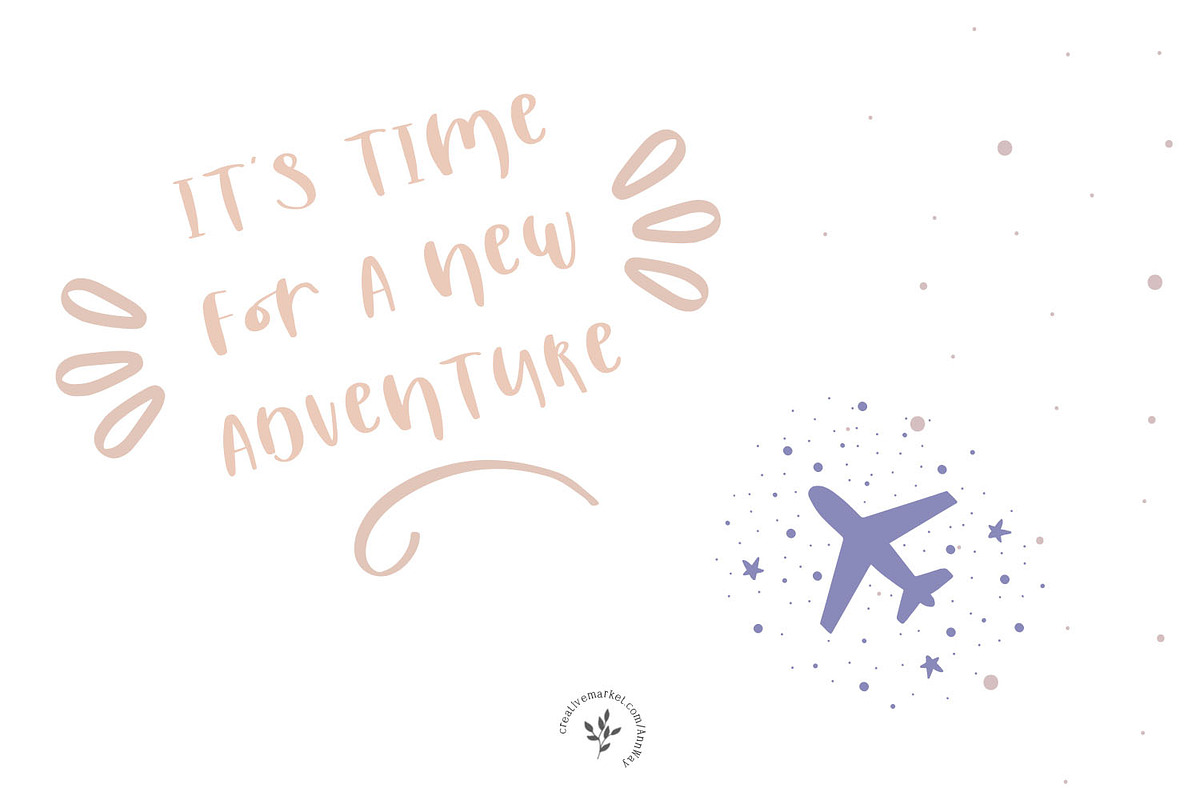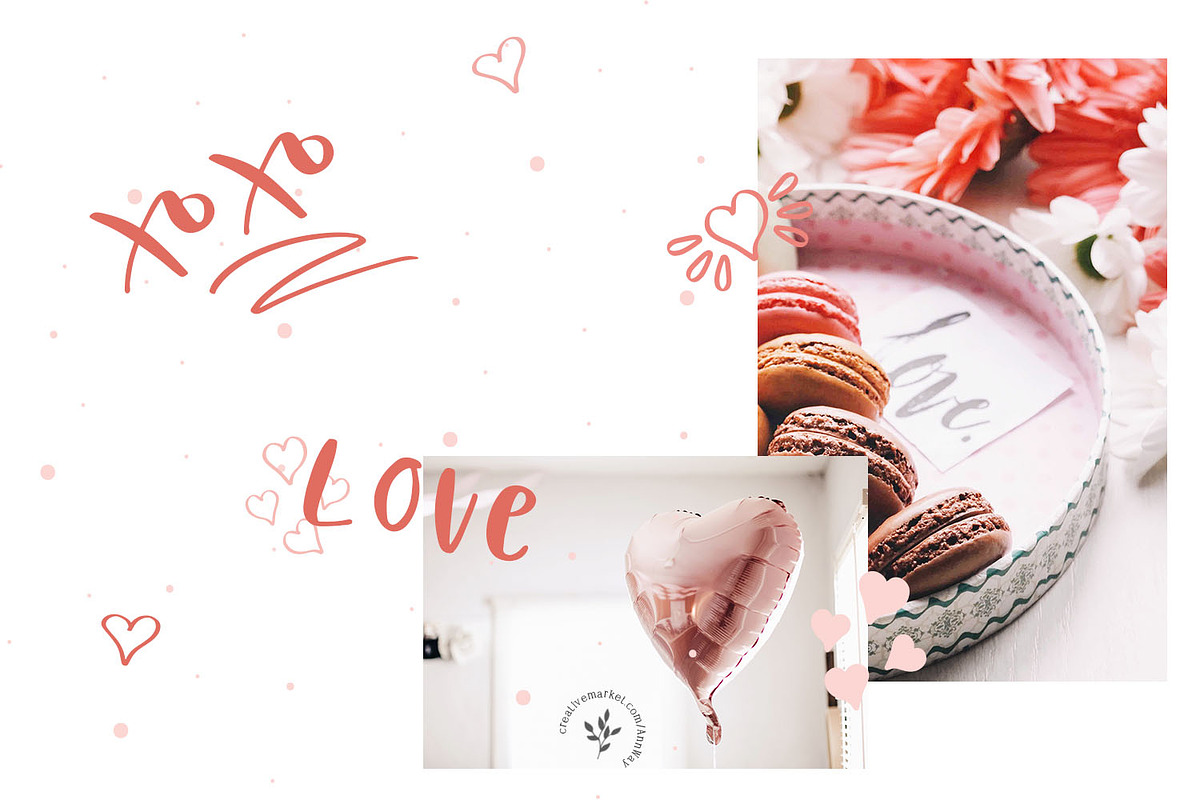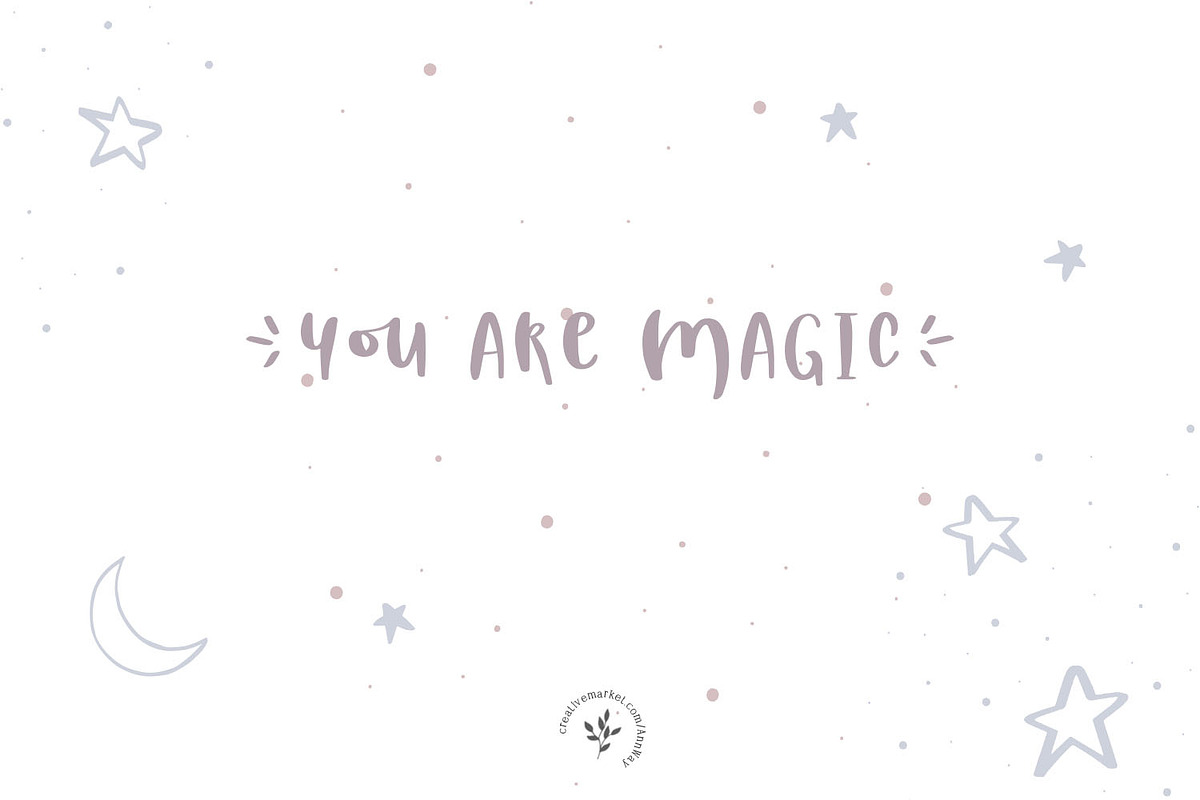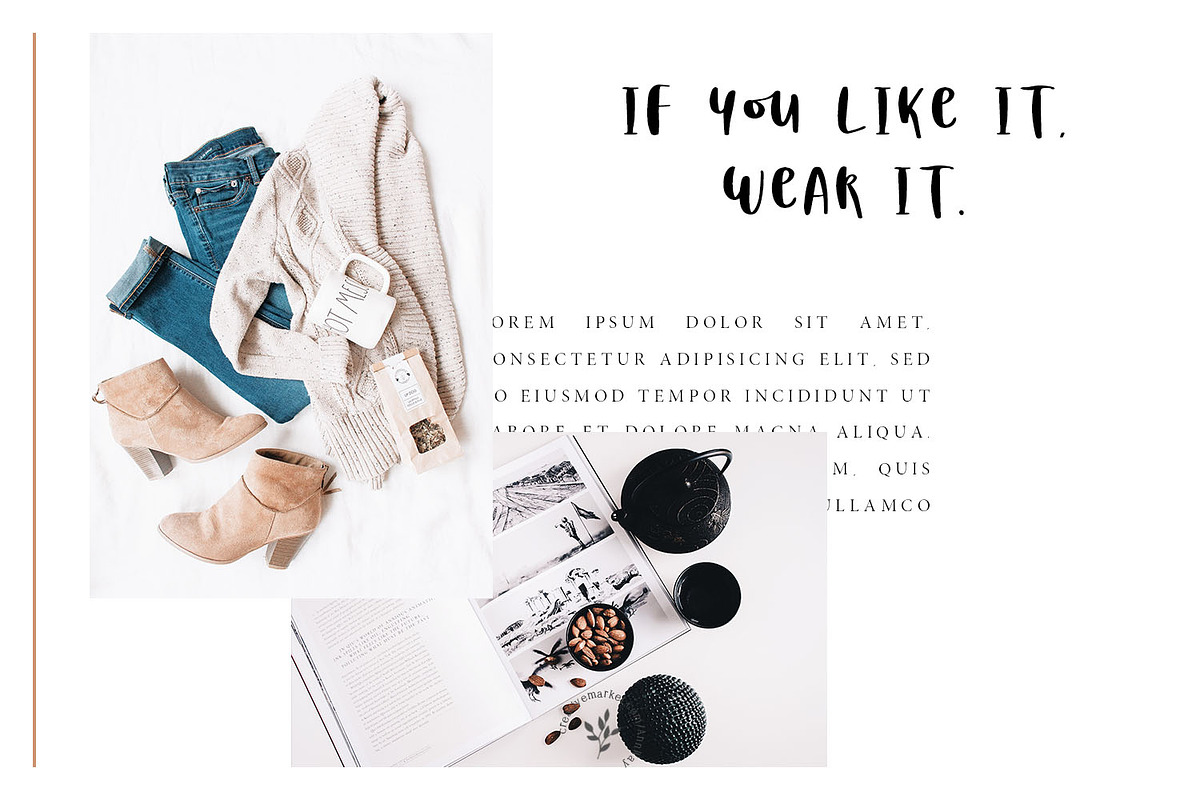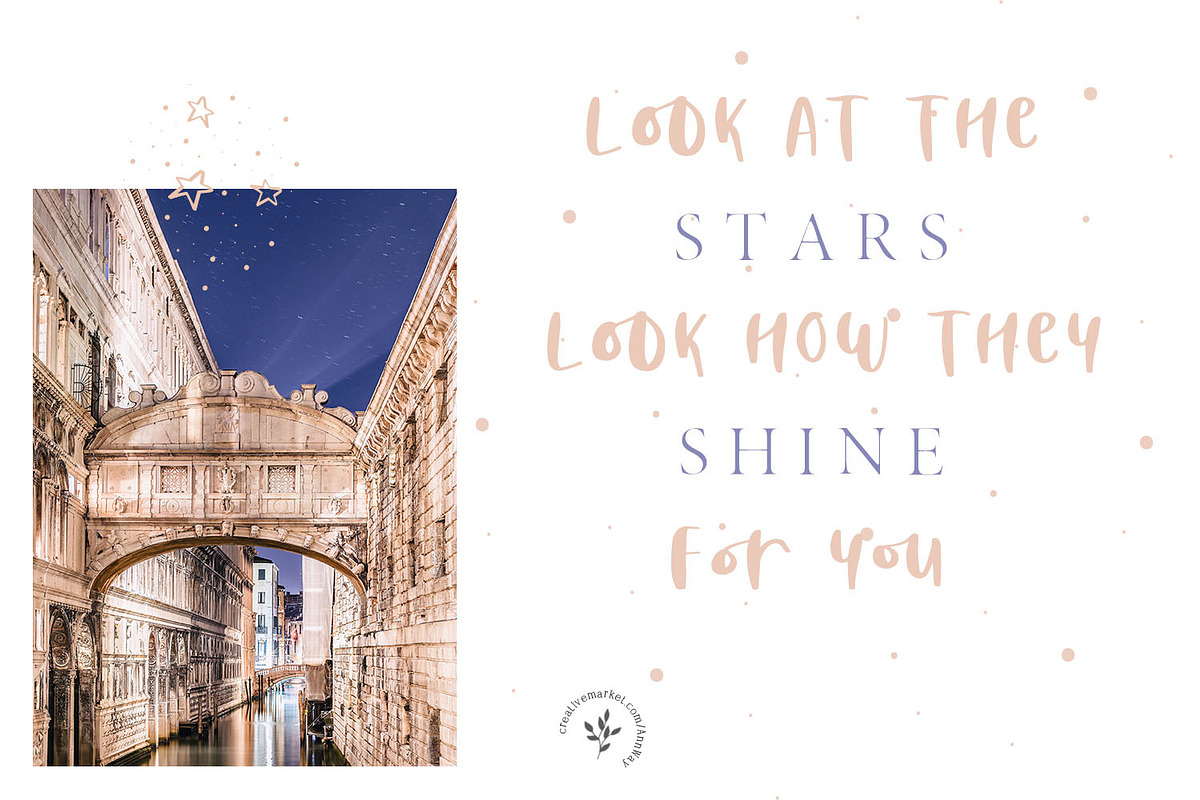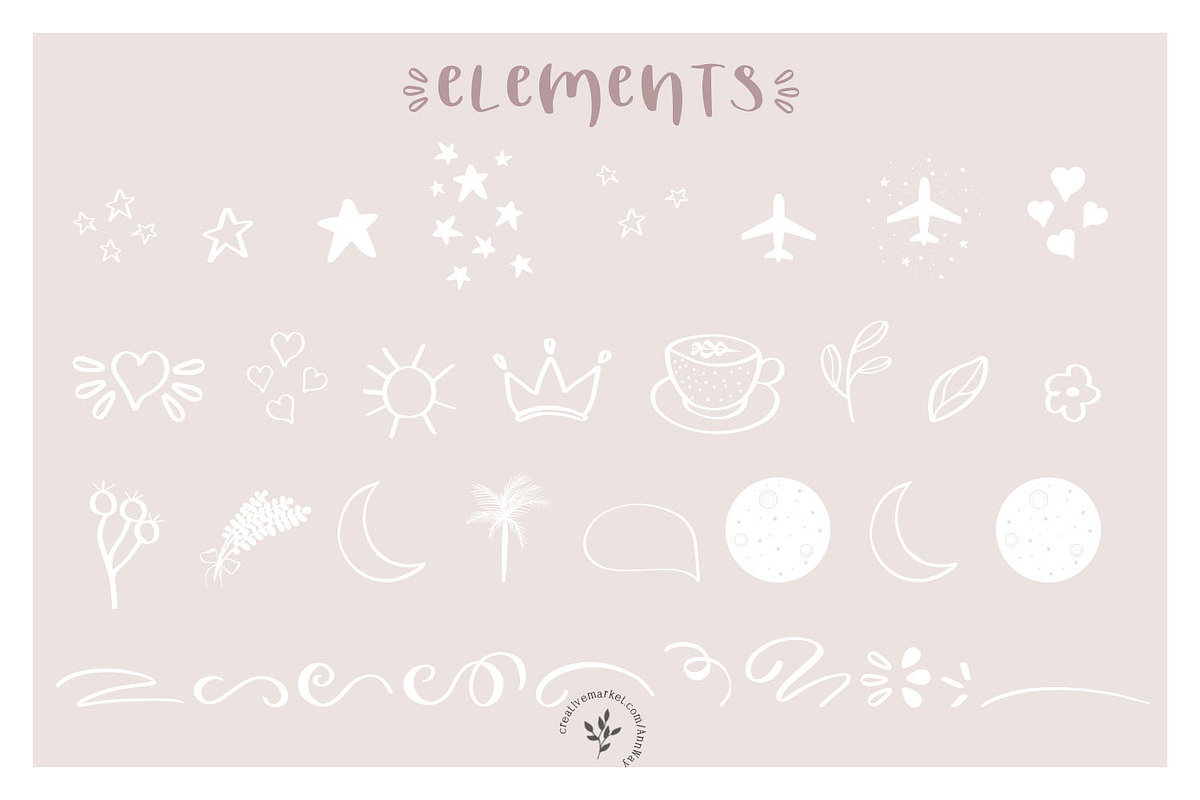
M O O N
The font with ligatures looks different than without them. To use ligatures, you need a program that supports this function.
This "Moon Font" is well suited for various design projects, such as logos, advertising, quotes, packaging design and others.